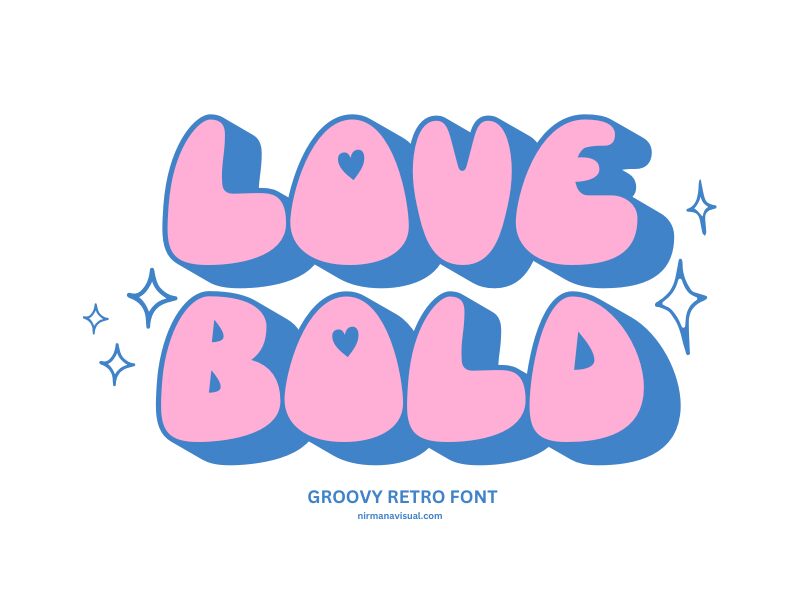
Love Bold, crafted by Nirmana Visual, is a captivating cartoon-style display font that radiates charm and personality. Its bold weight commands attention with its playful, bubbly characters making it perfect for whimsical designs. The font's distinctive heart embellishments within the letters add a unique touch of affection and warmth.
Ideal for children's books, playful branding, or any project seeking a lively and endearing vibe, Love Bold effortlessly draws in viewers with its joyful aesthetic. Its bold presence ensures readability while maintaining an enchanting visual appeal that stands out in any context.